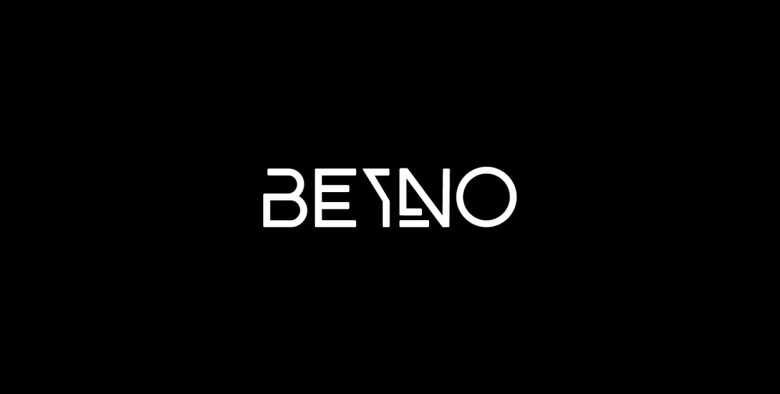
BEYNO Typeface
JUST FOR FUN! BEYNO is an uppercase font, which is great for creating eye-catching headlines, posters and much more. FREE for personal and commercial use!